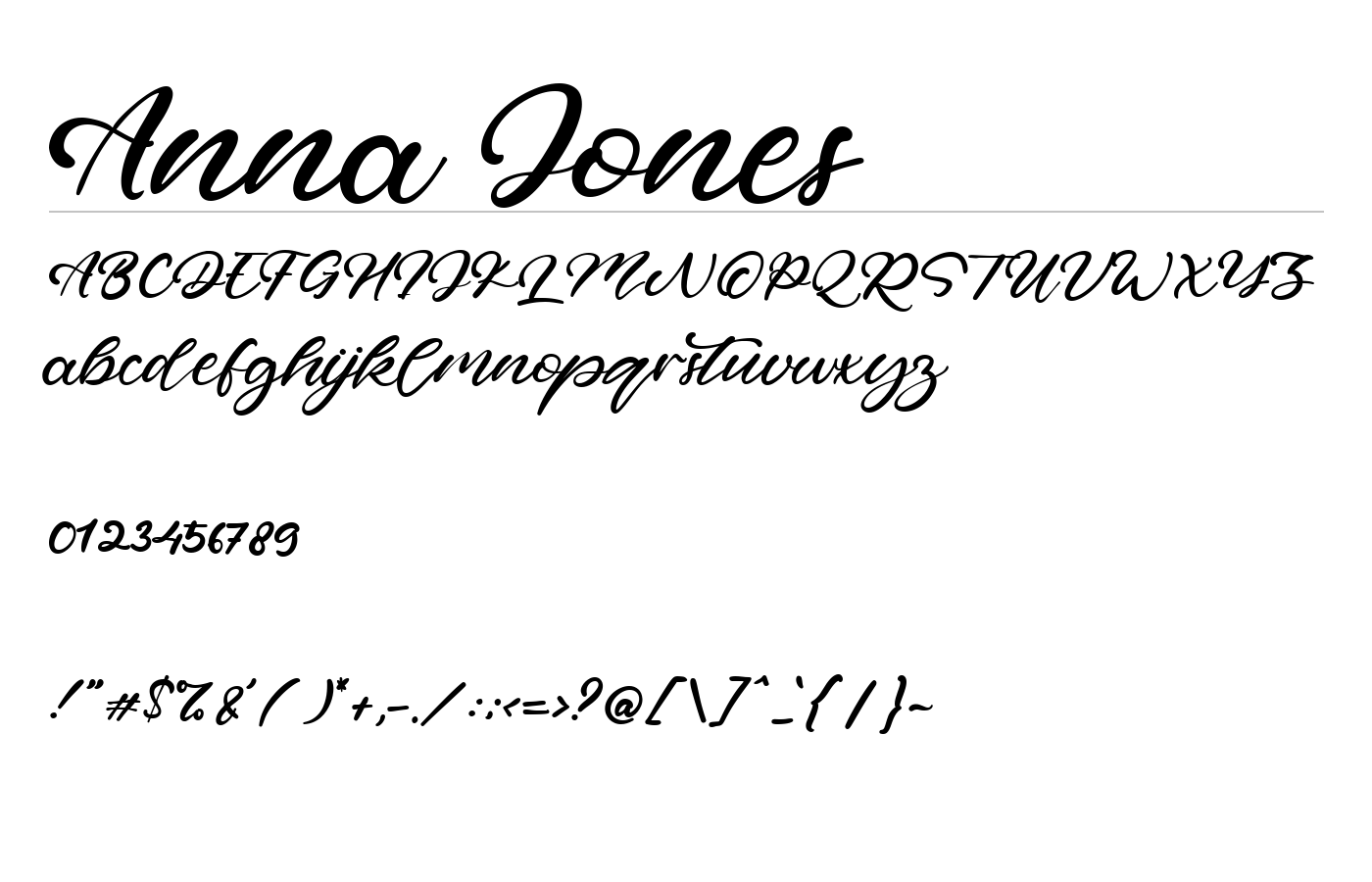
Anna Jones Font is a graceful and flowing script typeface characterized by smooth, natural strokes that resemble elegant handwriting. It features a moderate contrast in stroke weight and delicate curves that bring a stylish yet approachable personality, making it perfect for invitations, branding, and feminine or creative design projects where a personal touch is desired. This font excels in headlines and decorative uses, adding charm and sophistication without sacrificing readability.
Anna Jones Font
About Anna Jones Font
| Font family | Anna Jones Font |